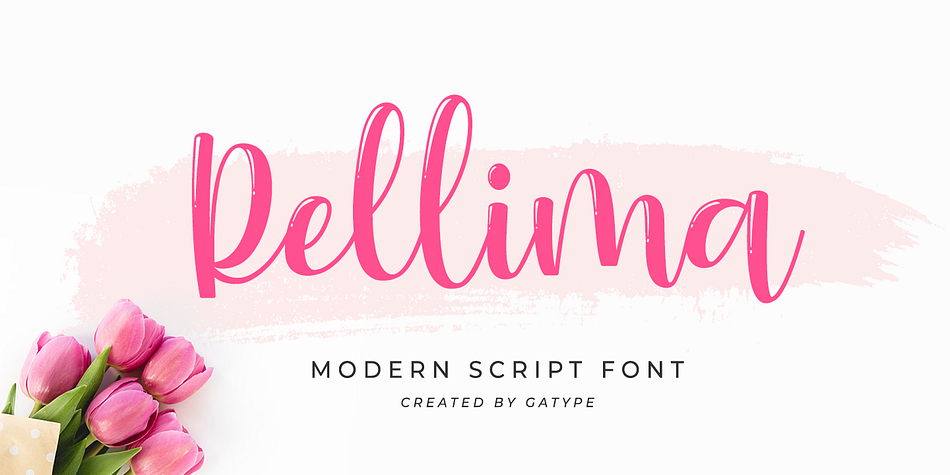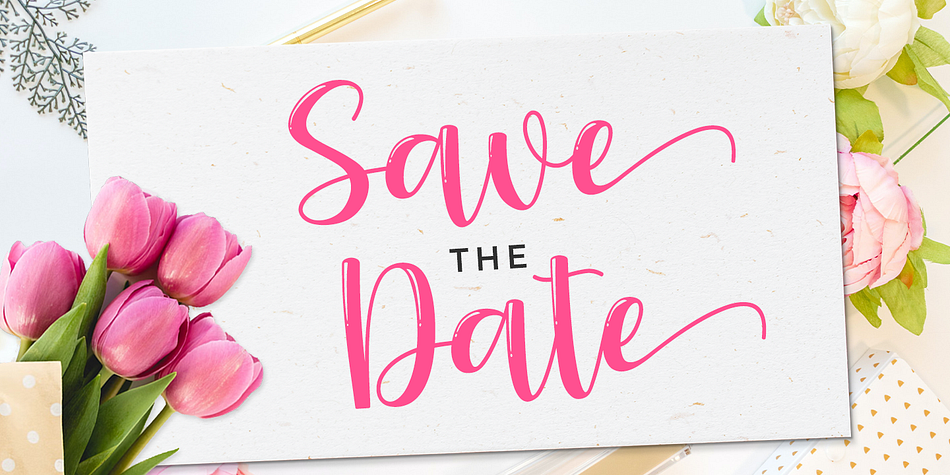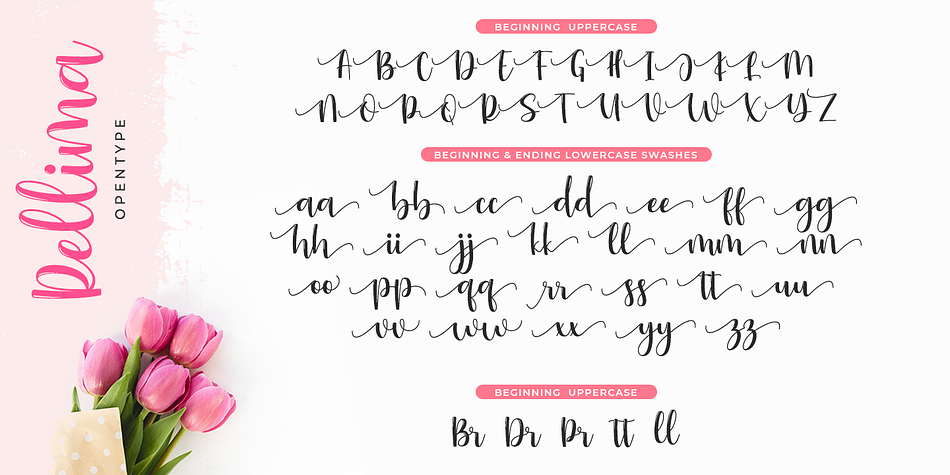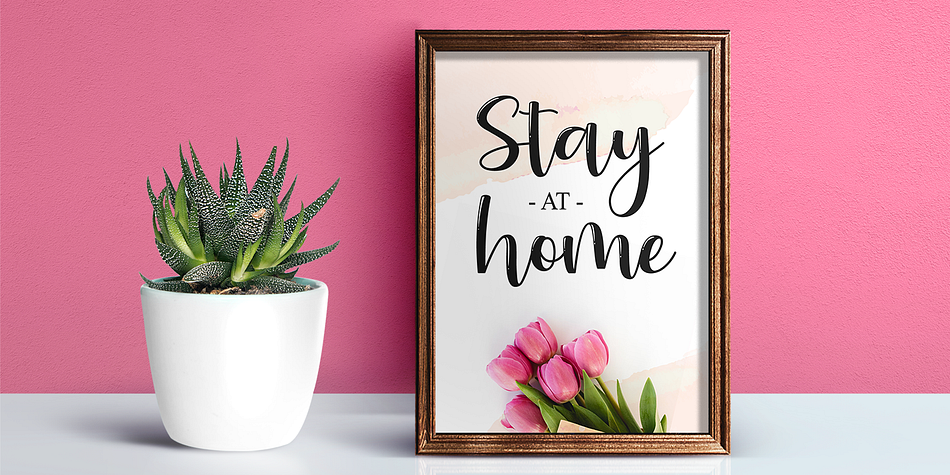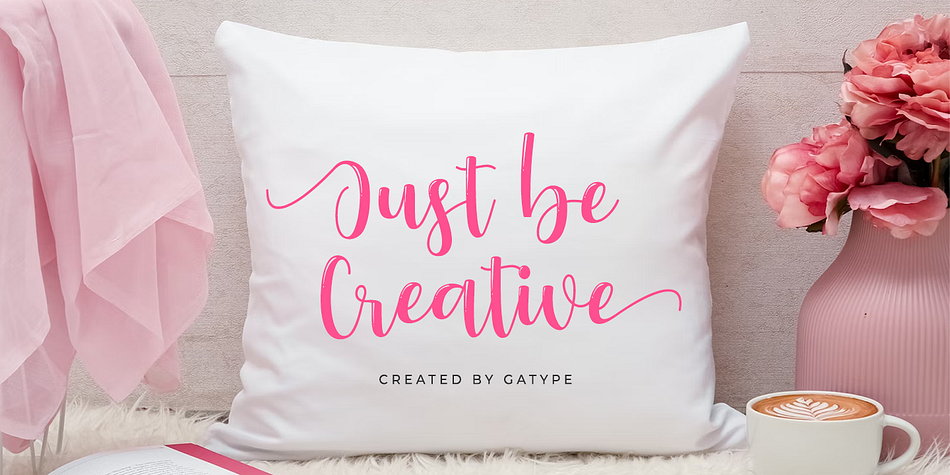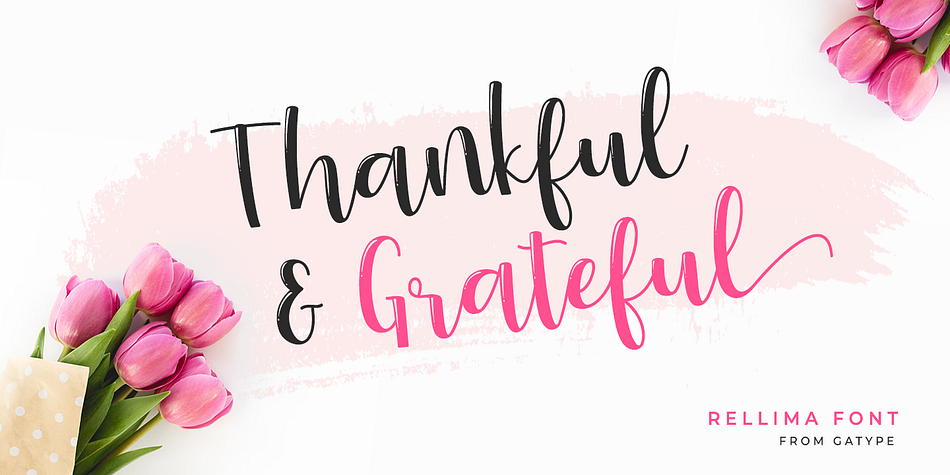
Rellima
Rellima is a brush script font family published by Gatype.
Rellima is a modern, dynamic and beautiful calligraphy manuscript with strokes. Can be used for many purposes. such as title, signature, logo, wedding invitation, letterhead, signage, label, newsletter, poster, badge, etc. Rellima features Open types, including initial and terminal letters, ligatures and International support for most Western languages ​​included. Files include: